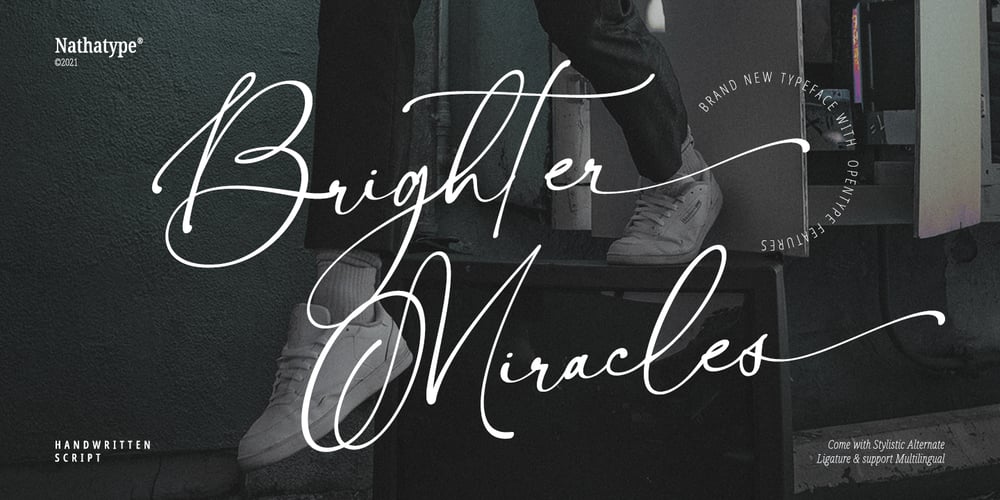
Brighter Miracles Font Family was designed by Donis Miftahudin and published by Nathatype. Brighter Miracles contains 1 styles and family package options. Looking for a elegant, stylish, modern, and adventure font? Ready to make your branding shine? If you need to create a big, bold logo for your business, work on a poster for an event, or whatever your project may be-then this is the perfect font for you.Brighter Miracles-A Script FontBrighter Miracles is a handcrafted font designed to bring your branding to life and add a touch of elegance, modernity and style. Perfect for social media branding projects, fashion designs, printed quotes, packaging, or even as a stylish text overlay to any background image.Our font always includes Multilingual Support to make your branding reach a global audience.Features: Ligatures Stylistic Sets PUA Encoded Numerals and Punctuation Thank you for downloading premium fonts from Nathatype